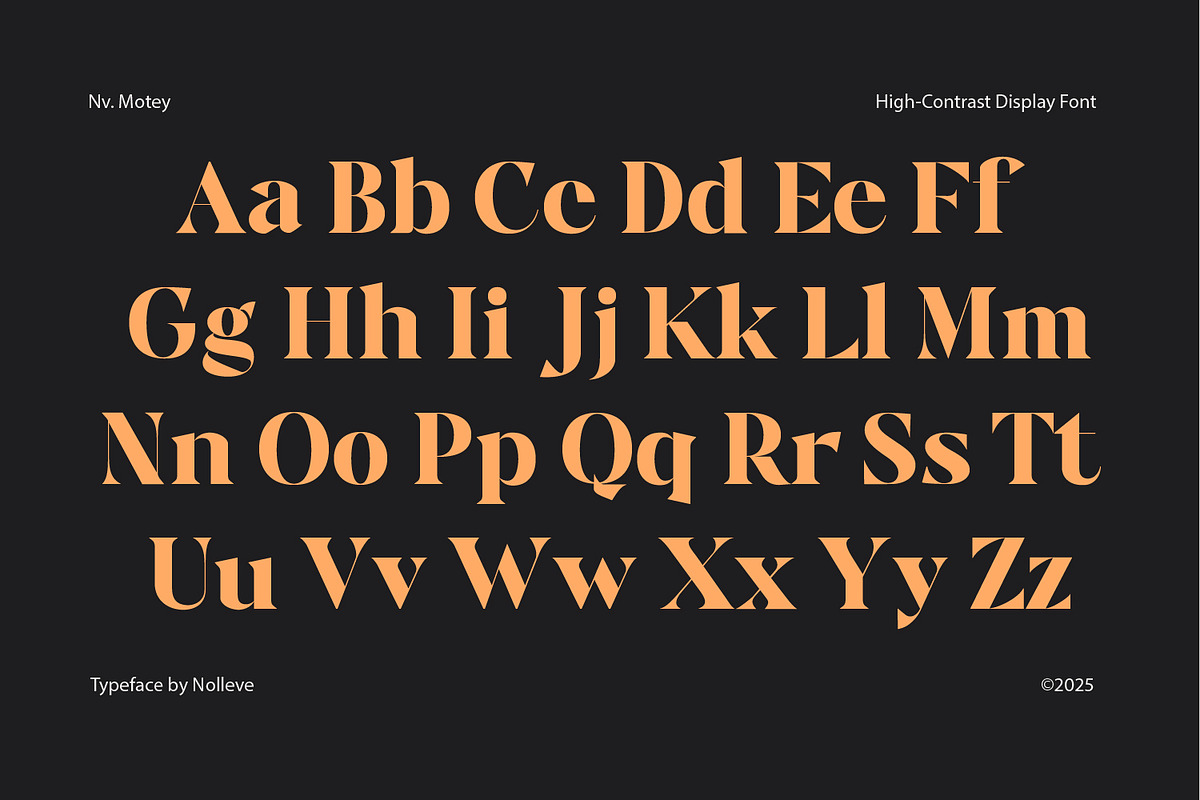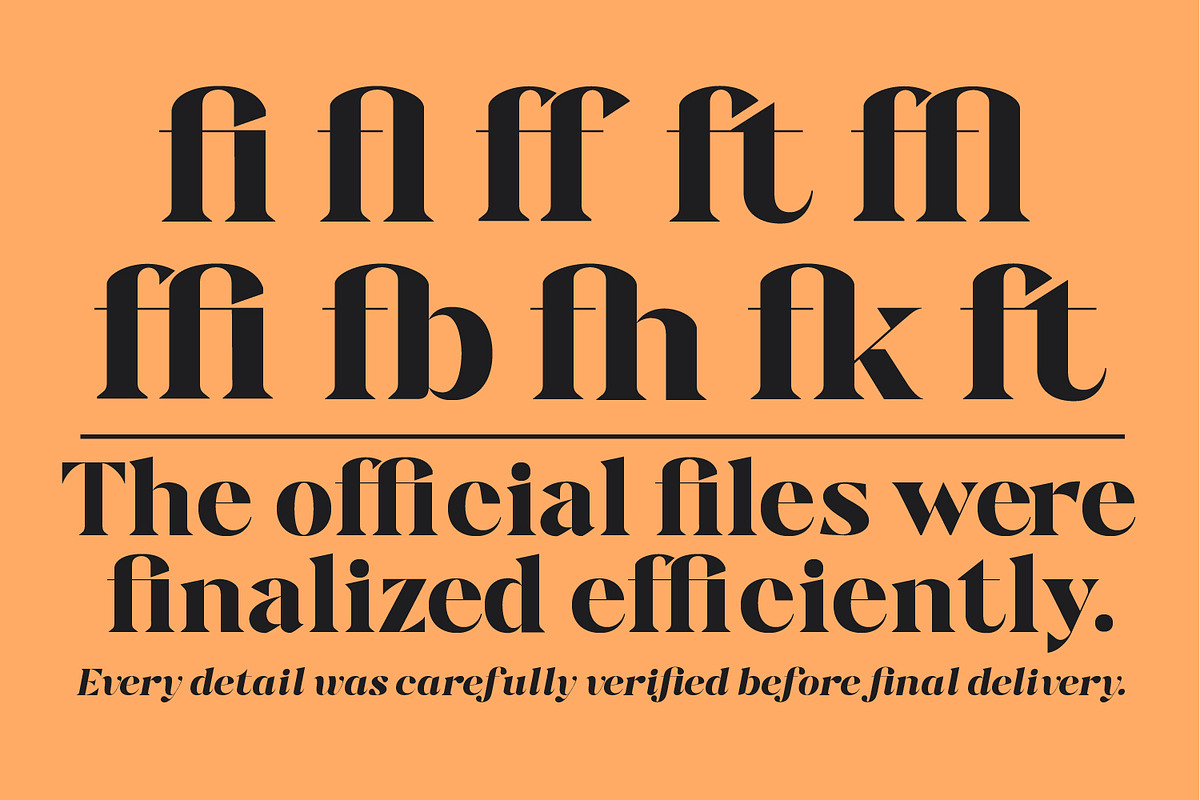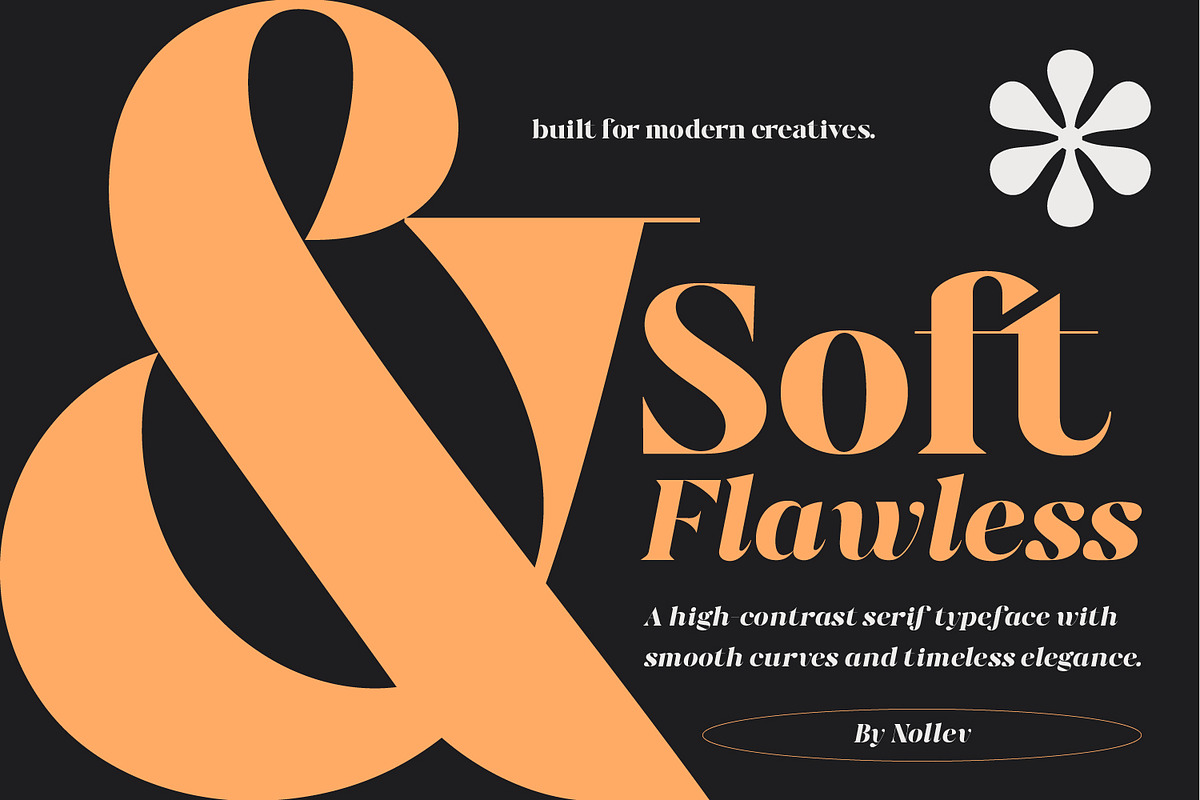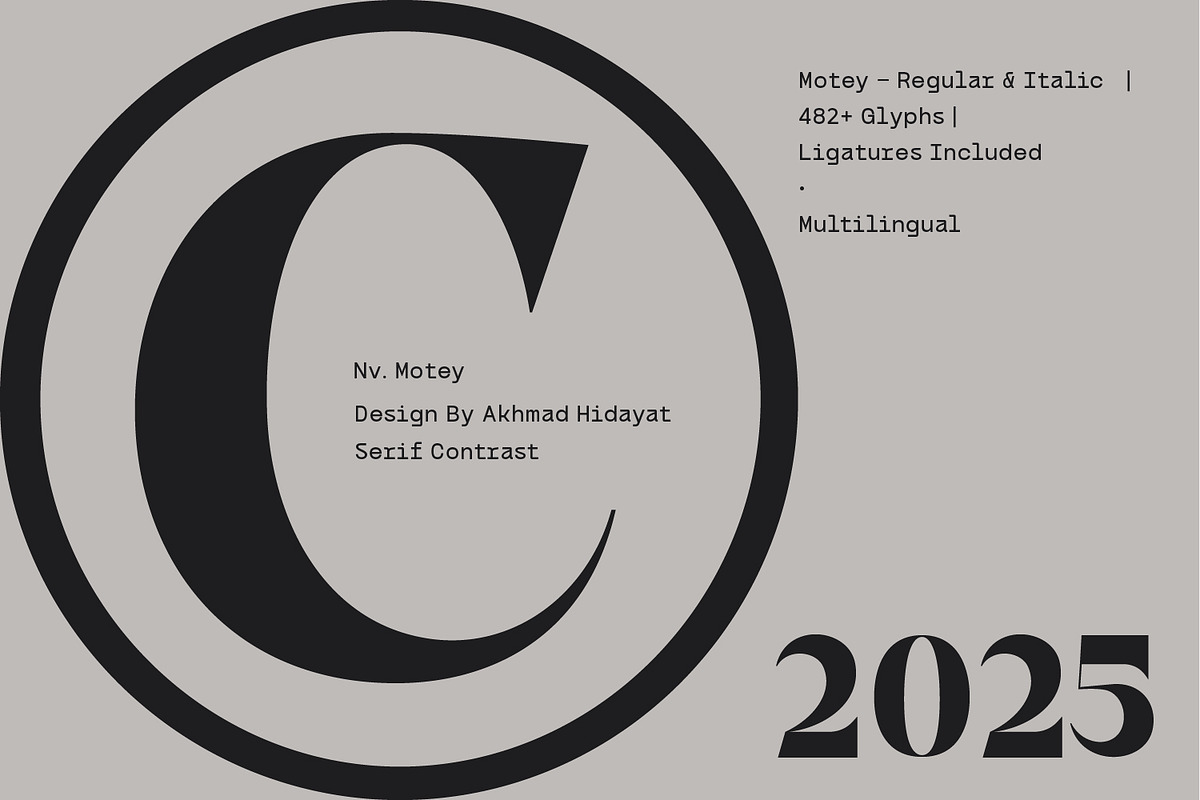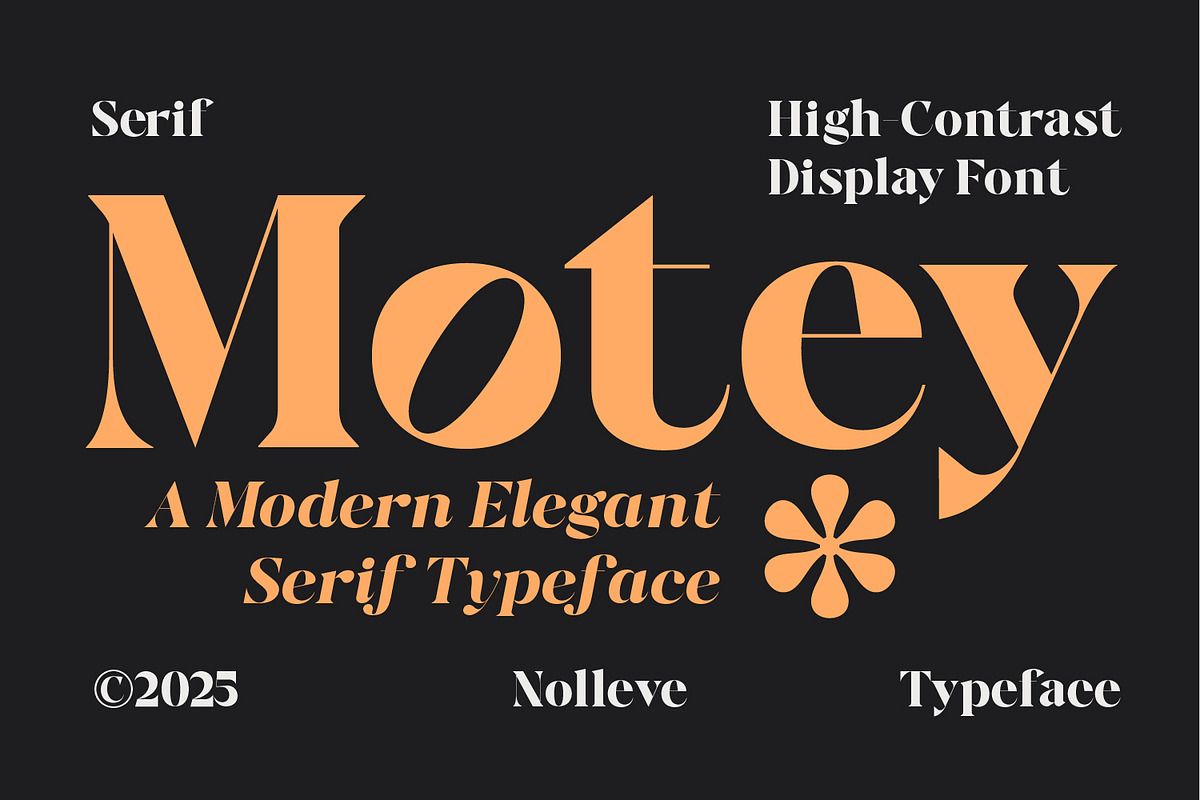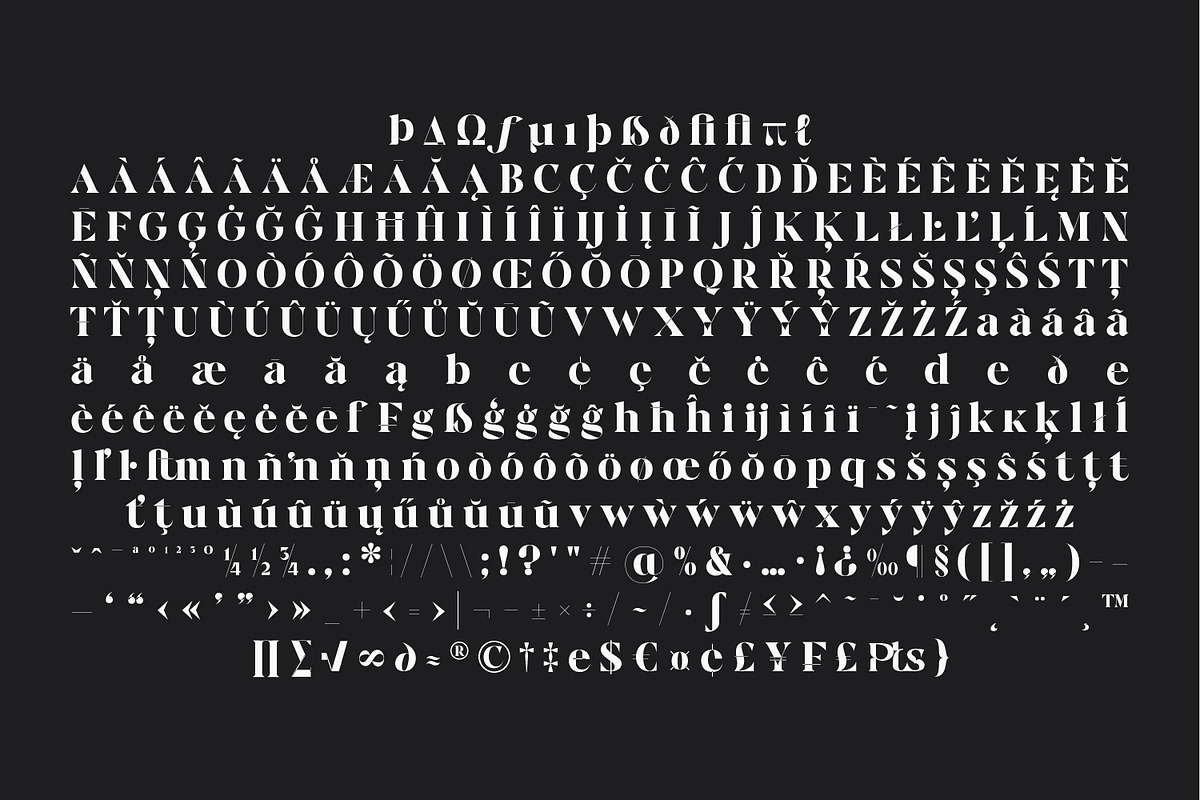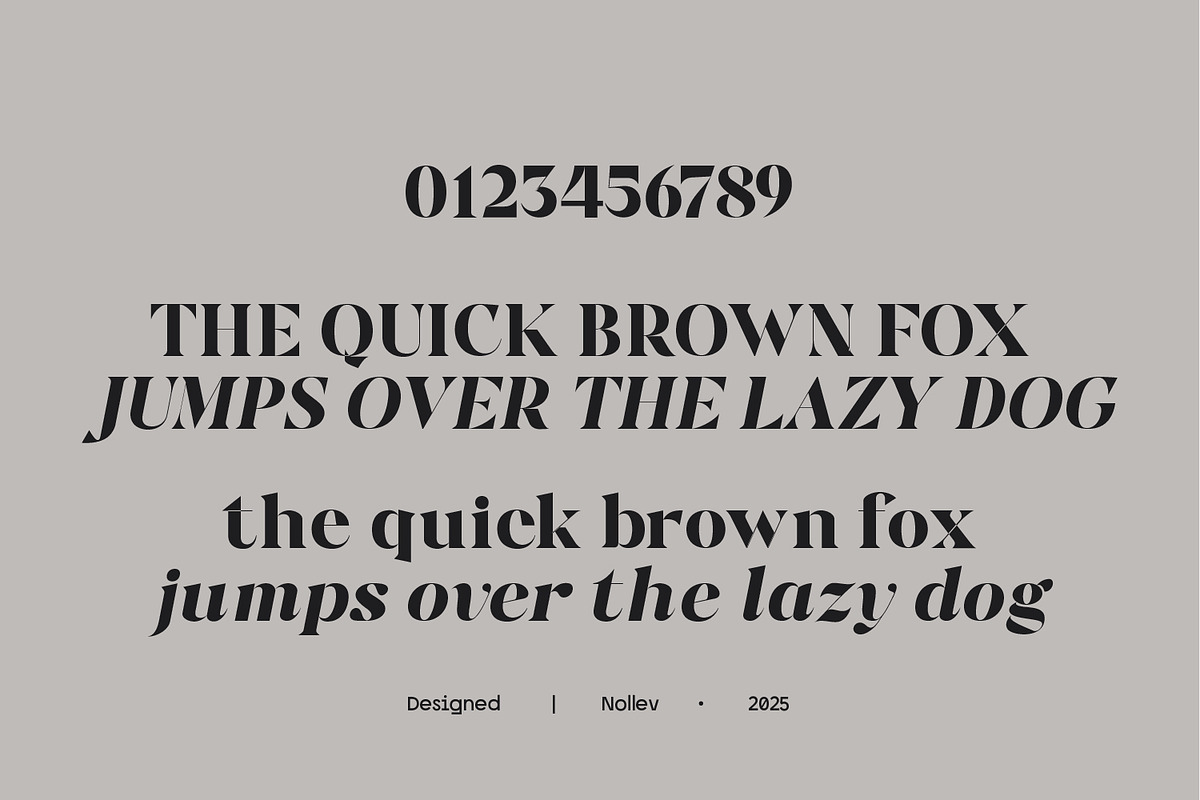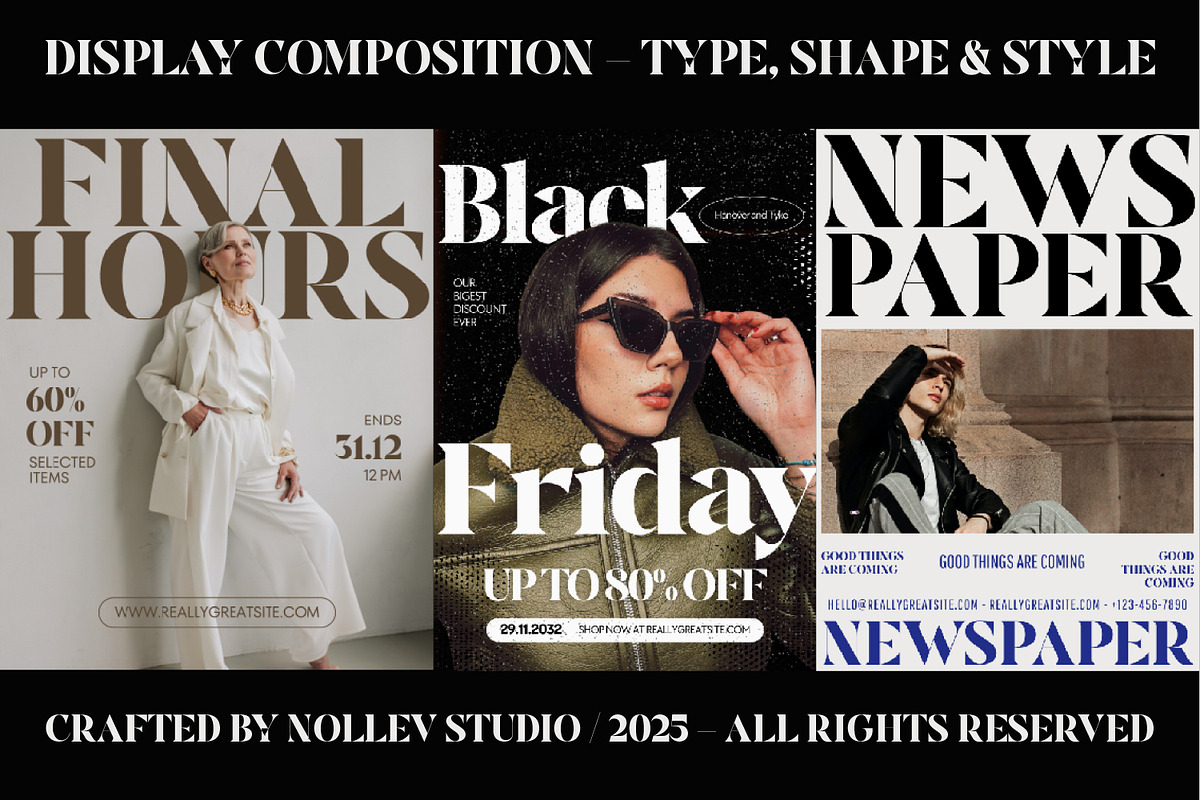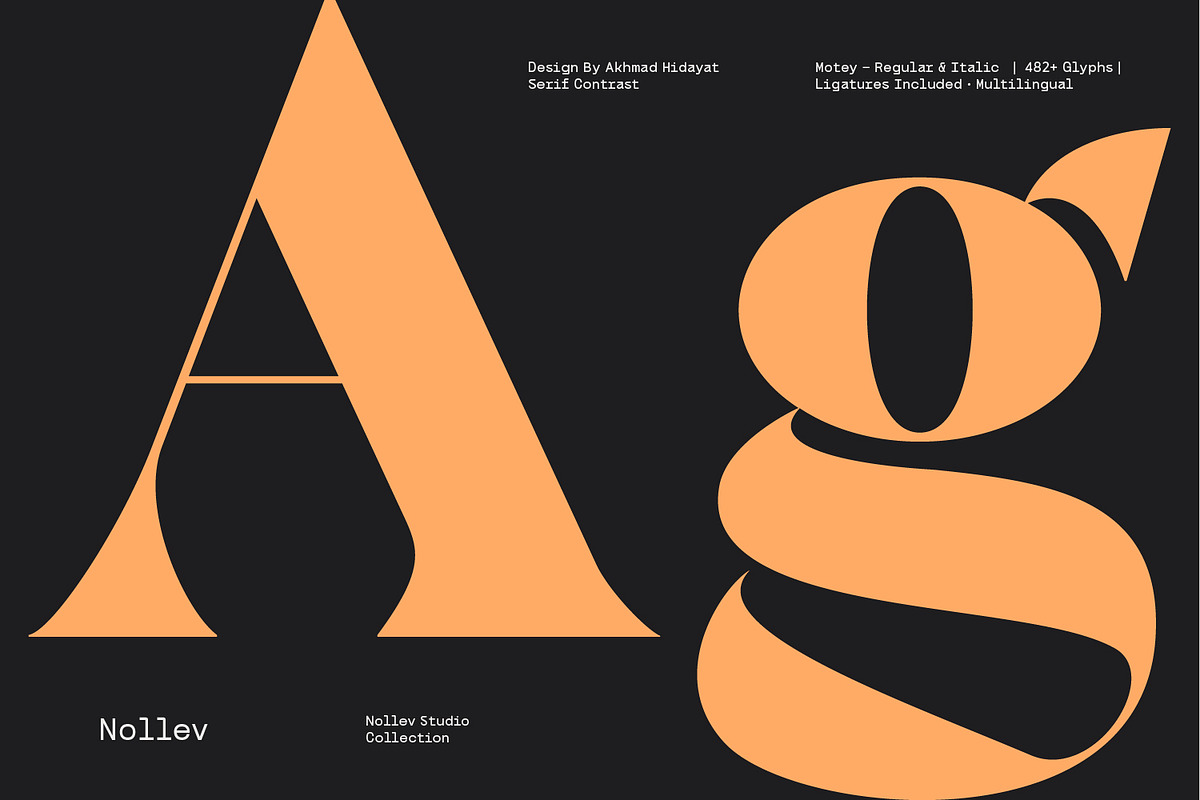
Motey – Modern Elegant Serif Display
Motey is a modern elegant serif typeface with high contrast and bold character shapes, designed to bring a sense of luxury, editorial style, and sophistication to your designs. Each letter is crafted with a balance of soft curves and sharp edges, making it perfect for branding, logos, magazines, packaging, and modern classic typography projects.
💎 Features:
- High-contrast & elegant design
- Numerals & punctuation
- Ideal for logo, branding, editorial, and poster design
💡 Perfect For:
- Luxury branding
- Beauty & fashion design
- Editorial layouts
- Packaging design
- Wedding invitations